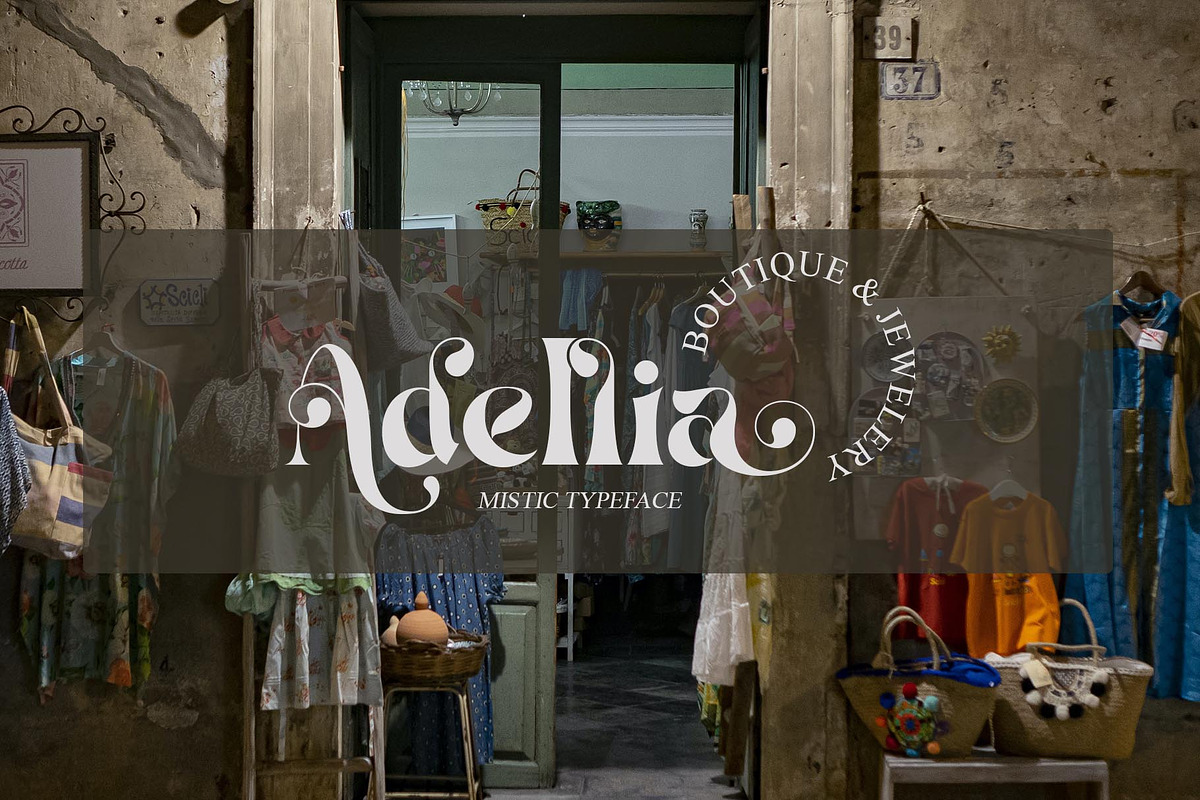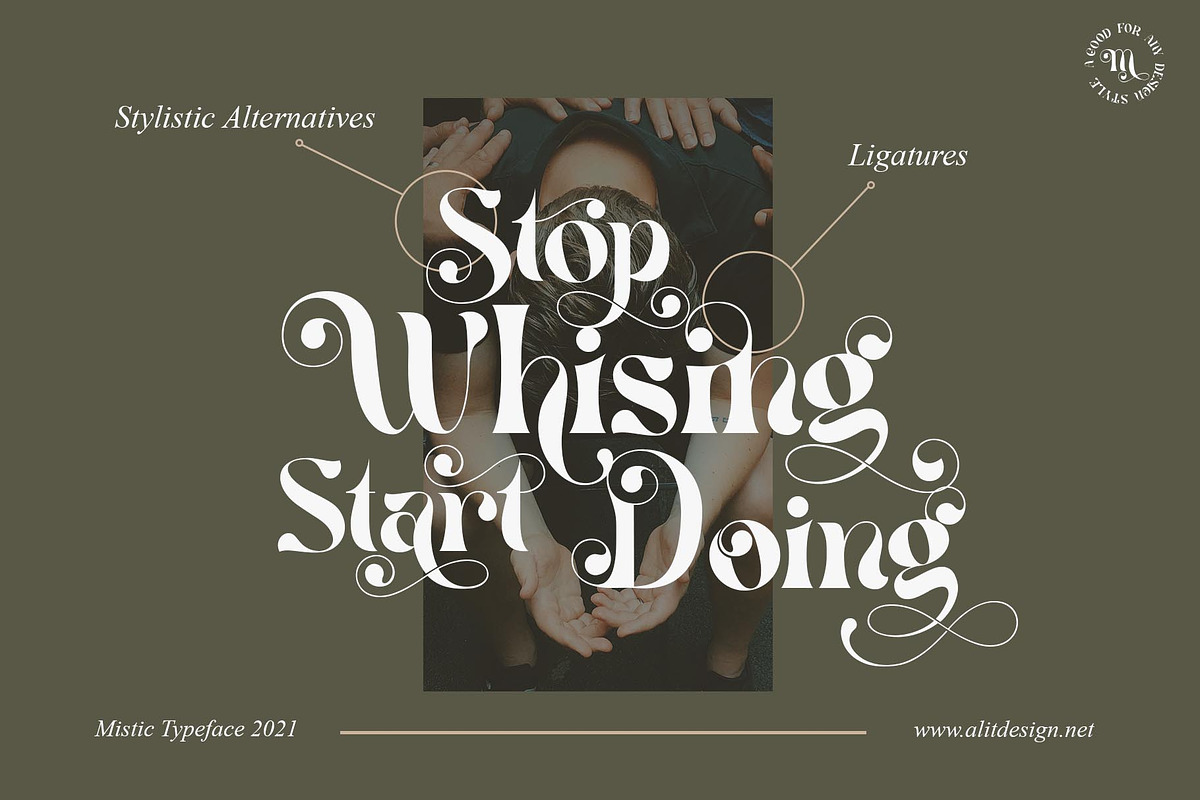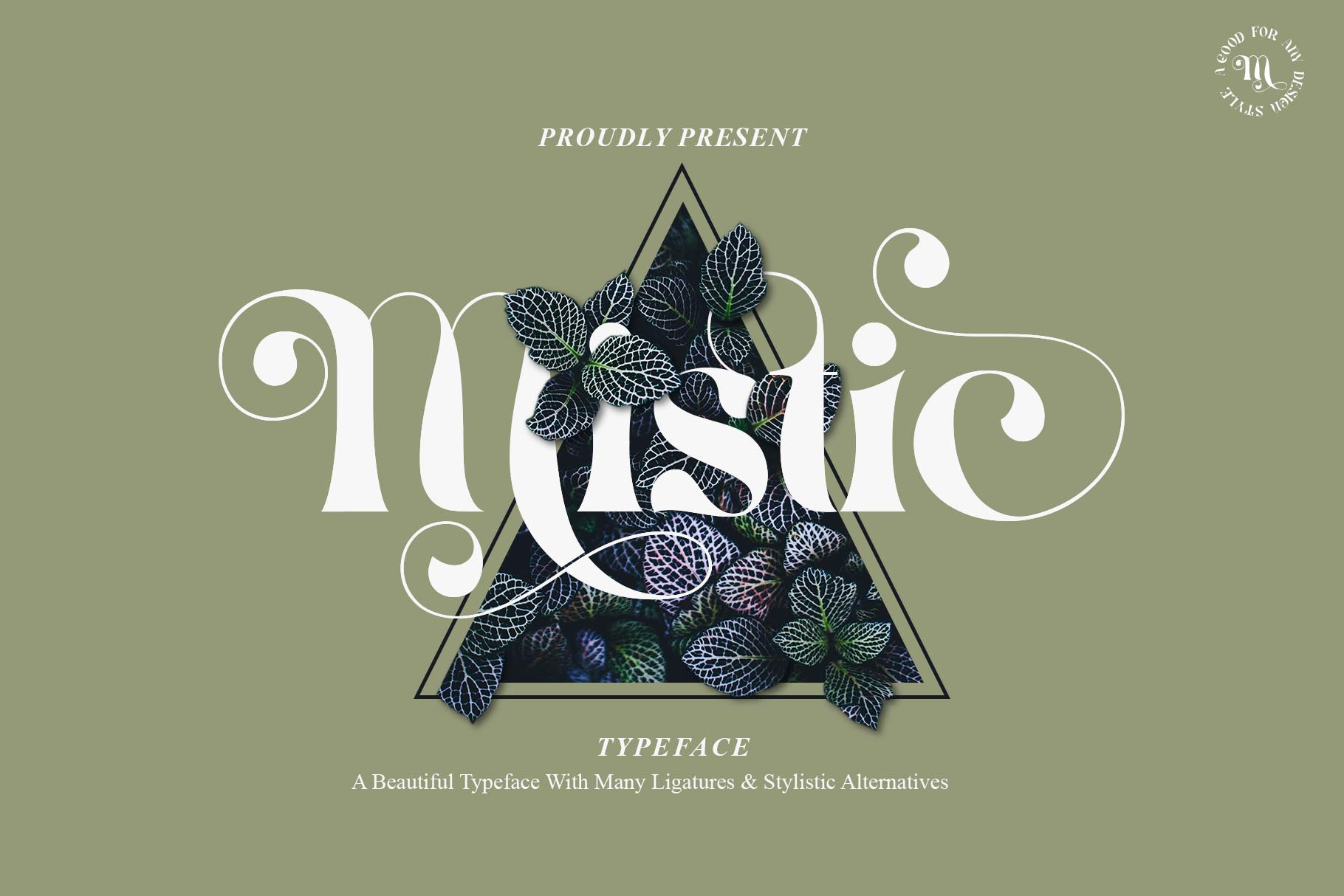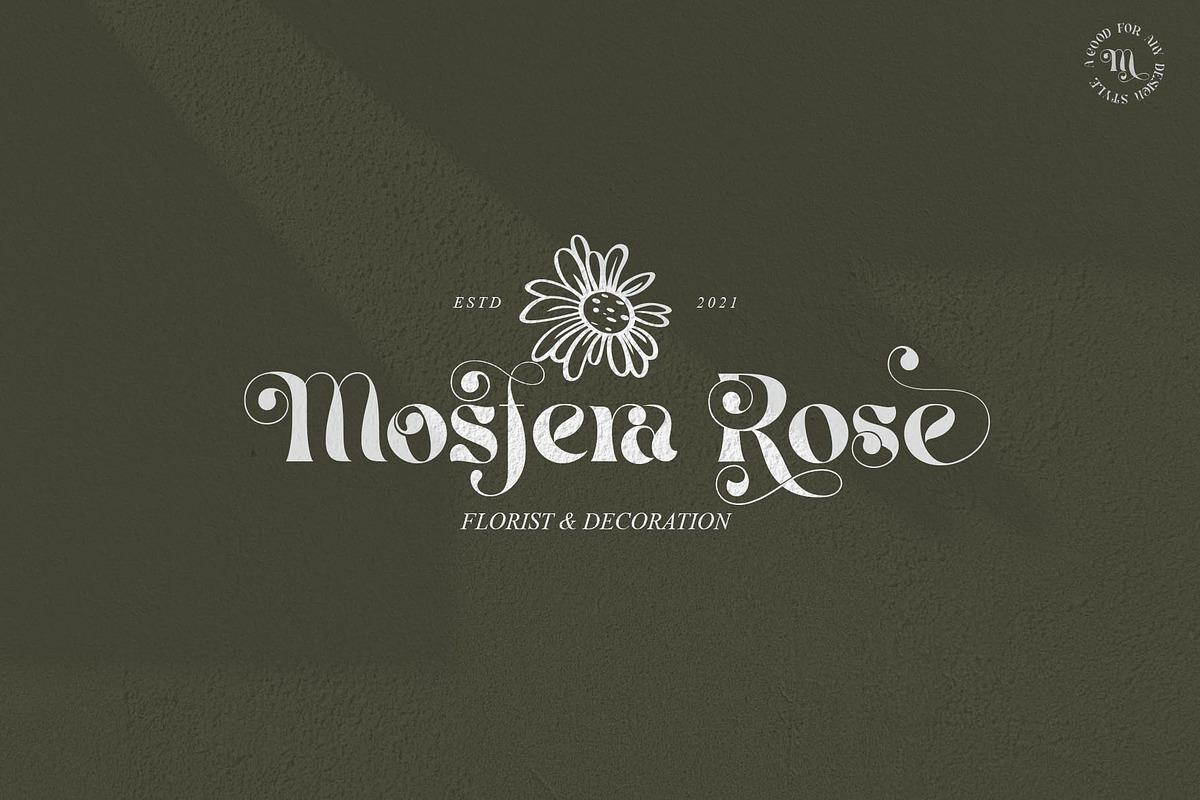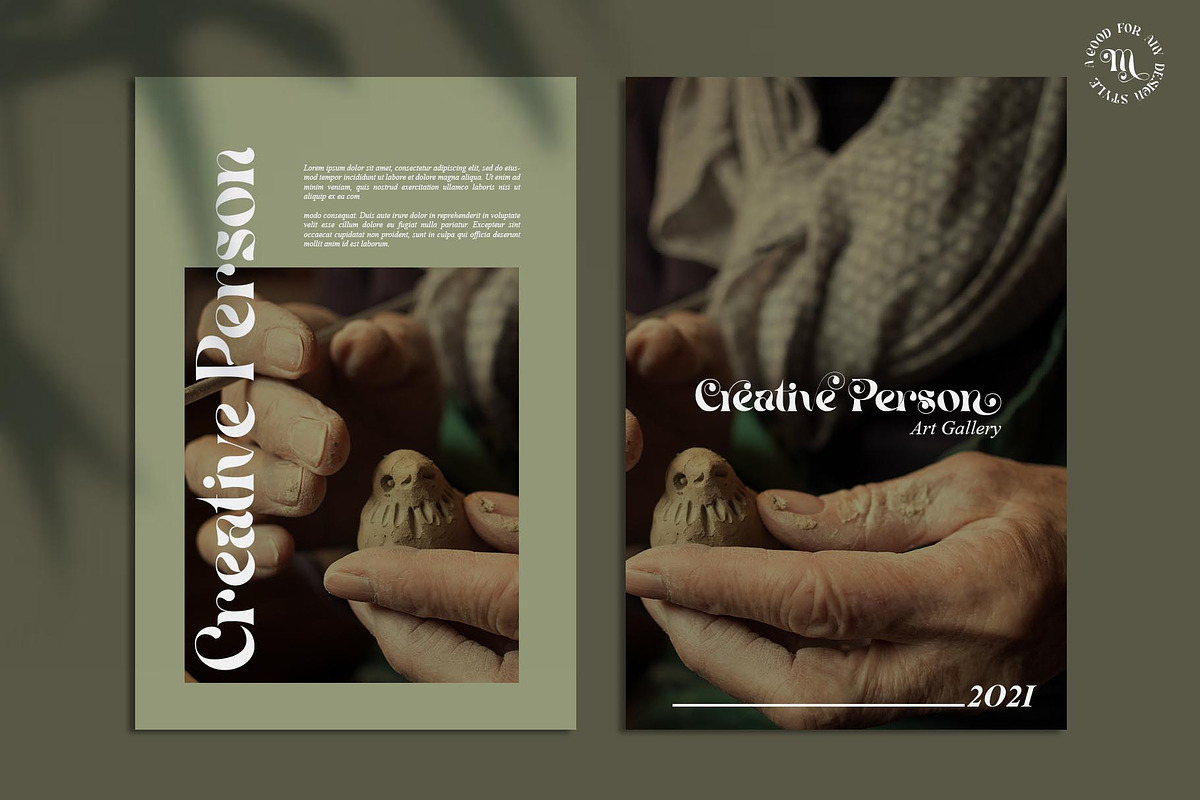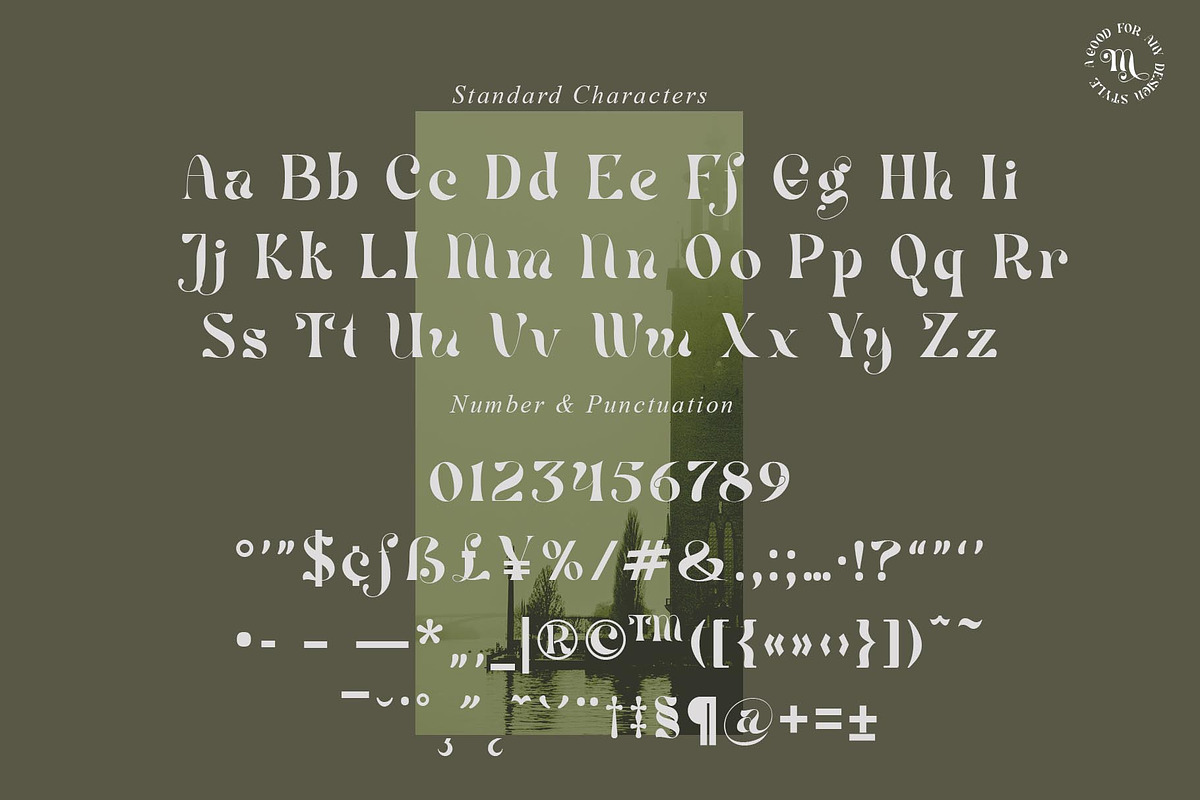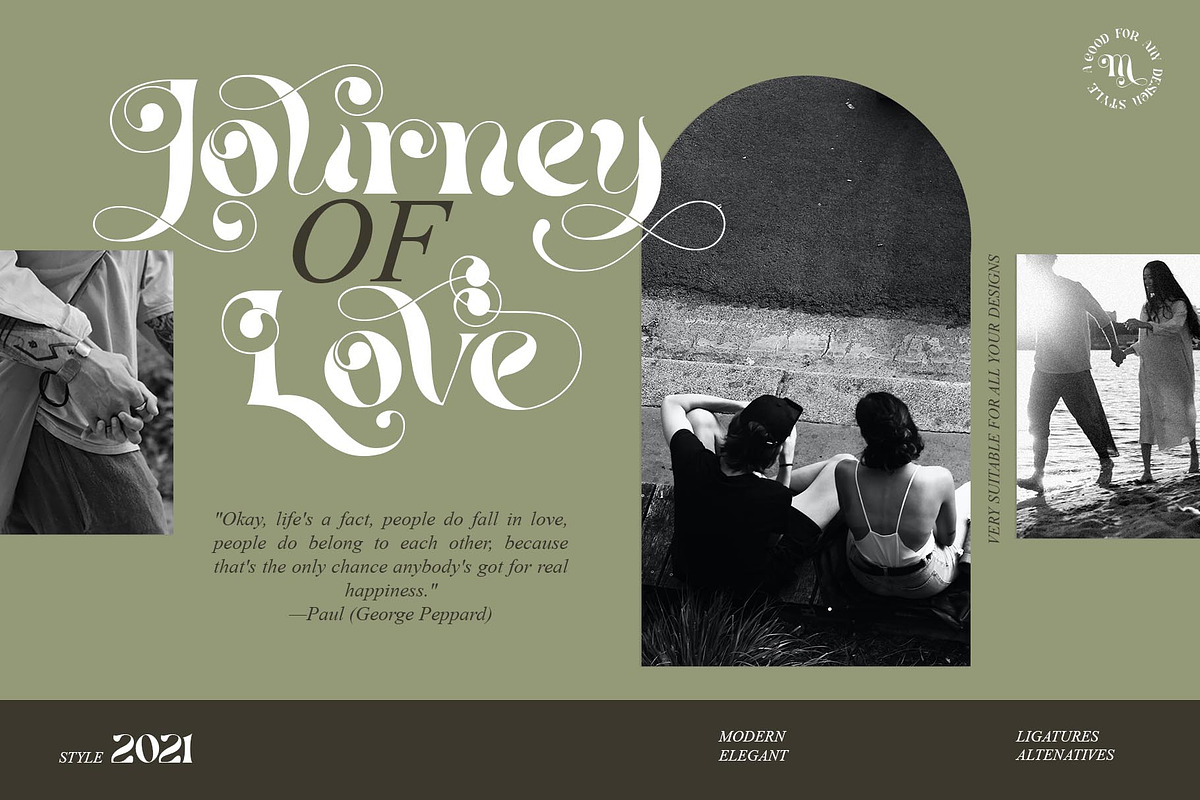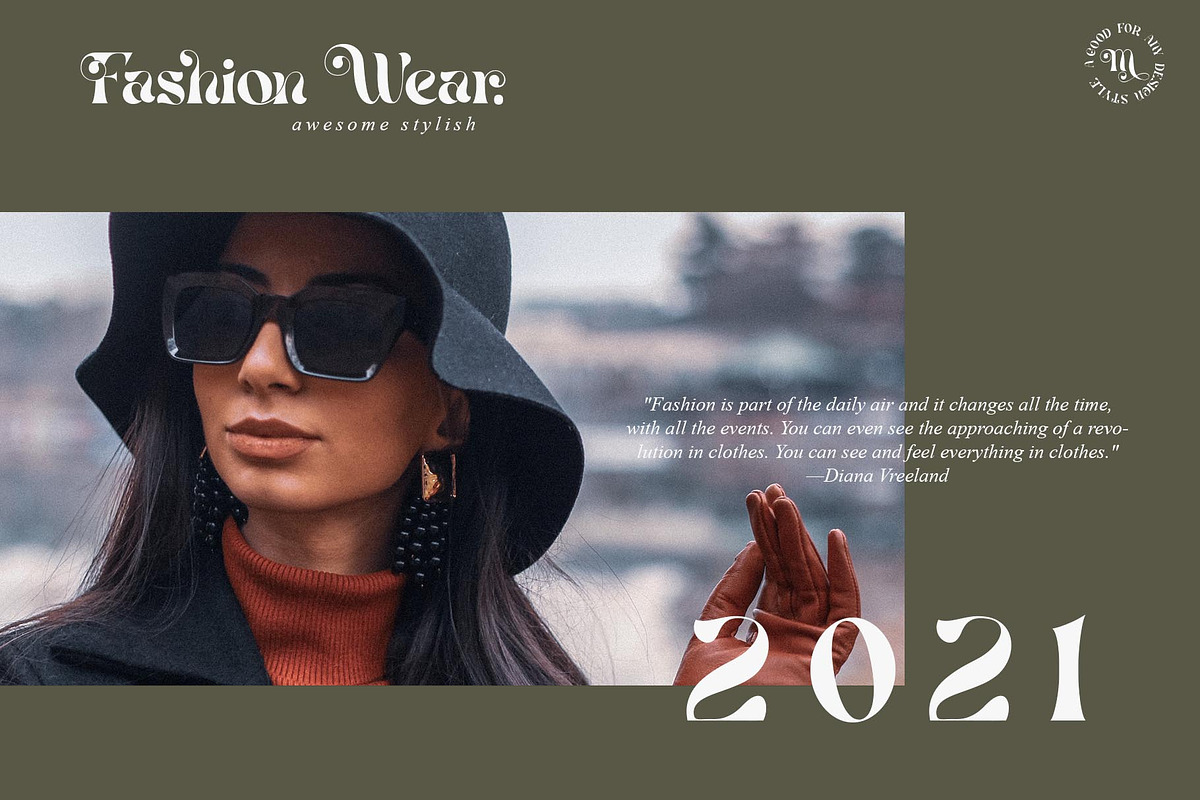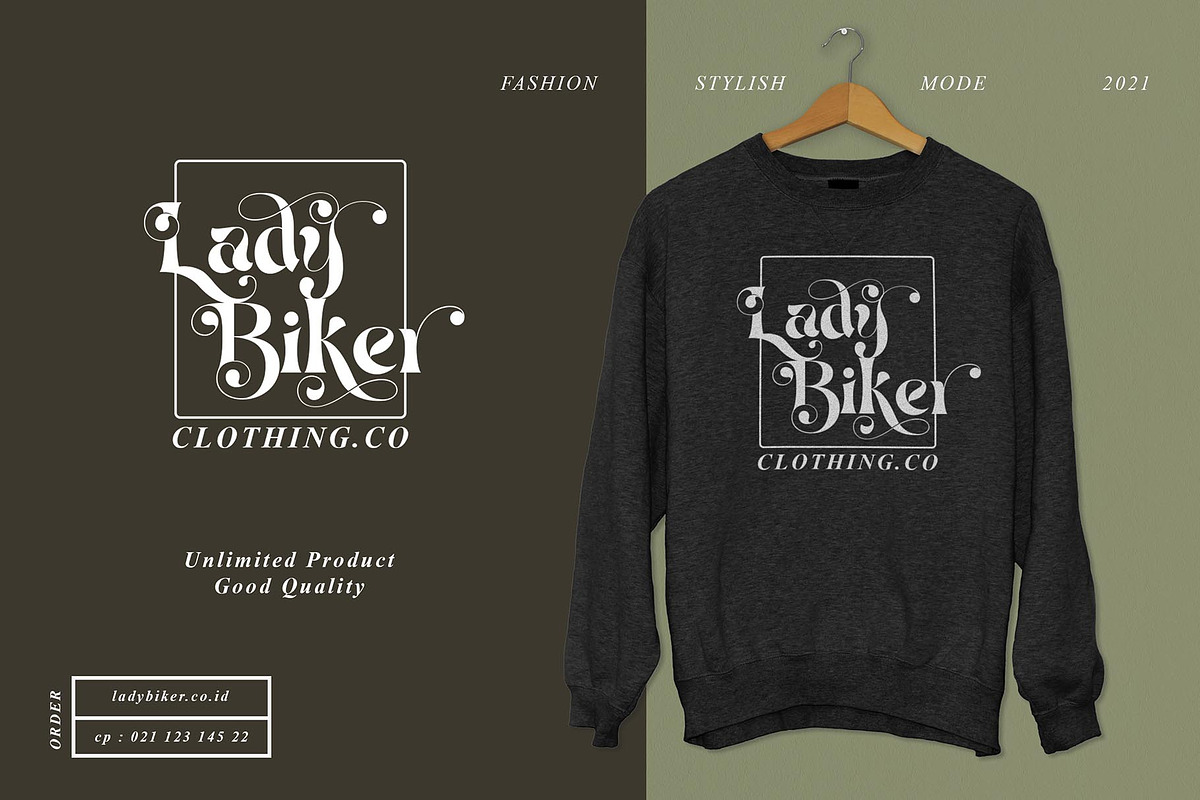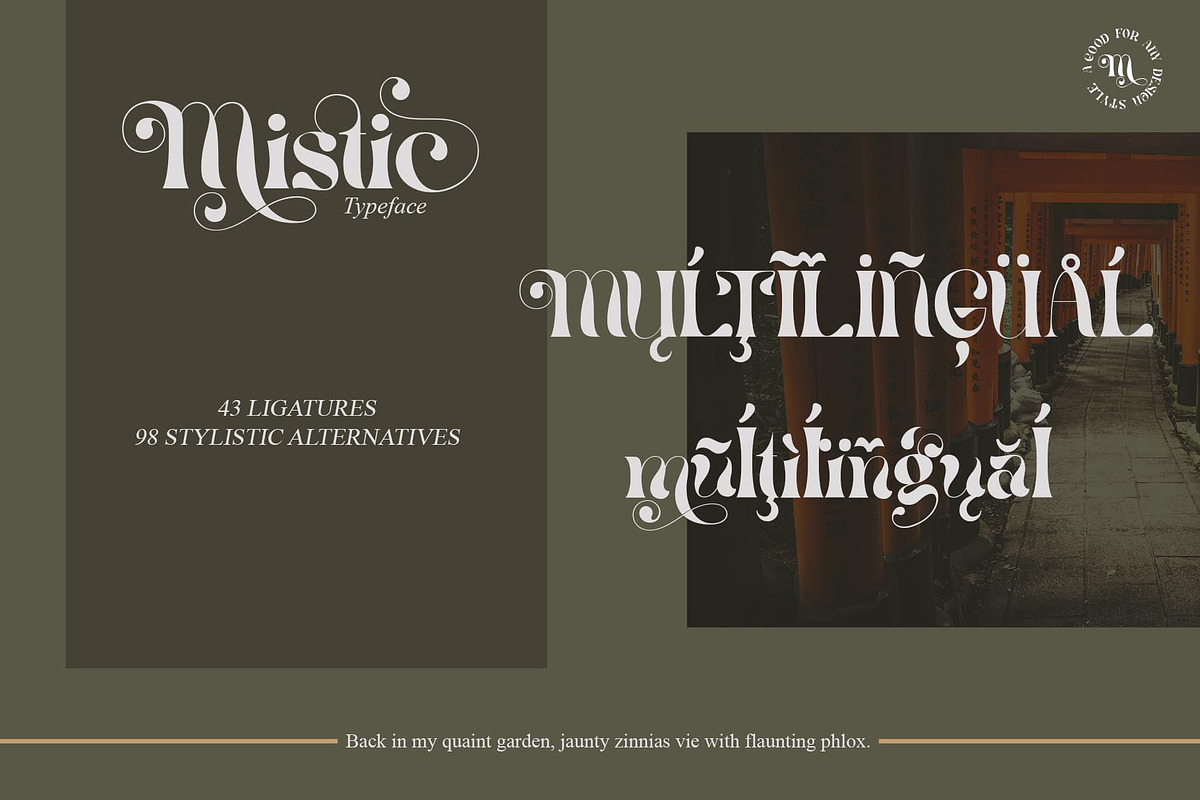
Mistic Typeface
Modern Serif font with swash alternate, created from the frequent use of typeface for wedding needs. This font has an elegant and bold concept. It is perfect for designs with romantic themes such as wedding properties, Valentine cards, romantic quotes and others.
I purchased this font and there are no swirls. A previous review says the same (which I saw after purchasing). There'd s comment from the shop saying if the full version is purchased there are swirls but this is not the case.
we couldn't find the swirls that were shown in the original typeface photo. So very disappointed.